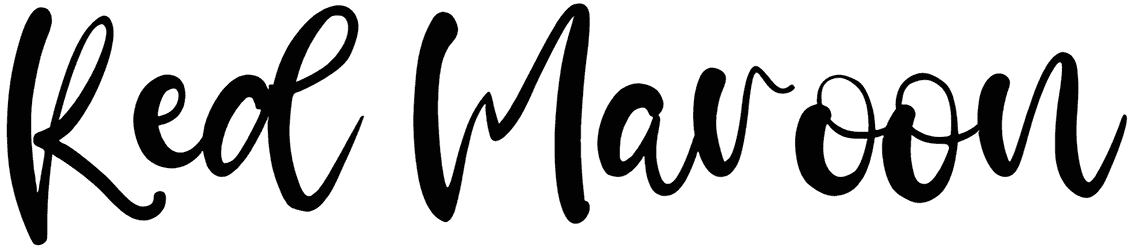
Red Maroon Font
With a modern and stylish face, you can create various designs; just let your creativity flow. As a handwritten font with smooth and realistic form, Red Maroon would be a ravishing item for your formal or informal layout. Almost full support of characters will give you a chance to place this script font for lots of designs, like business cards, apparel, posters, and so on.